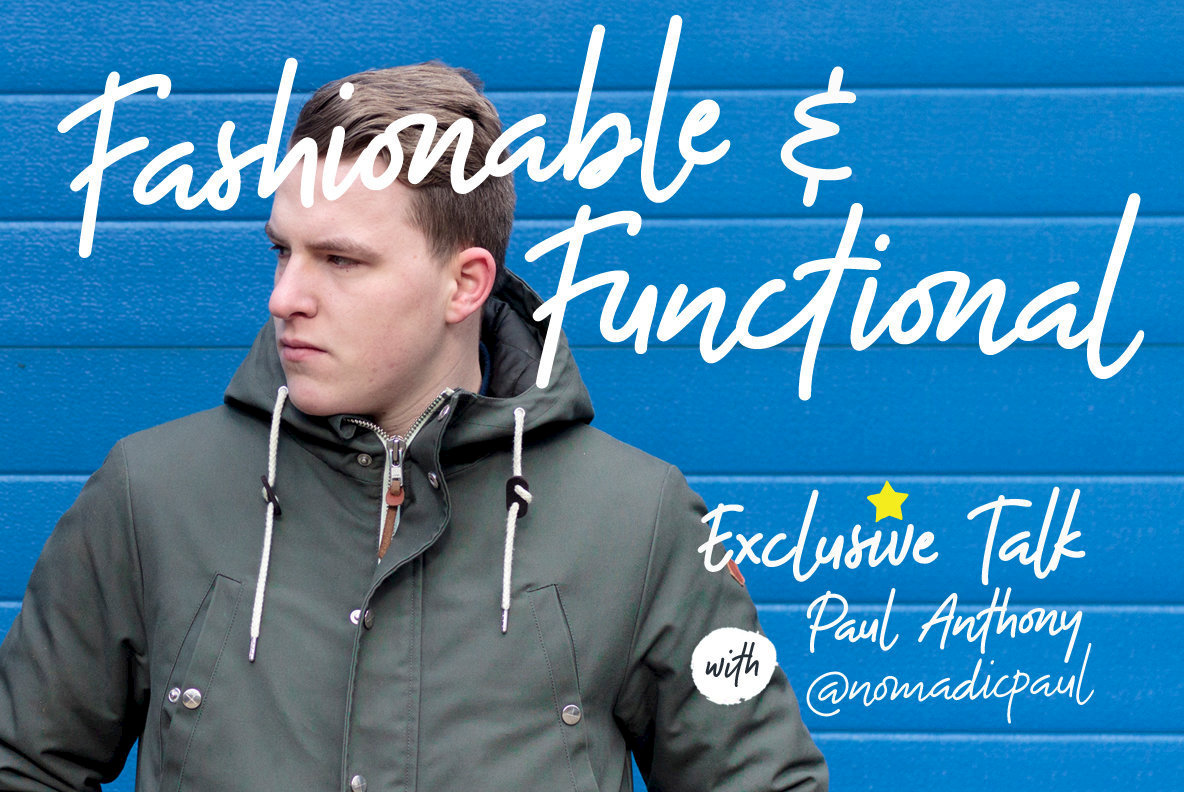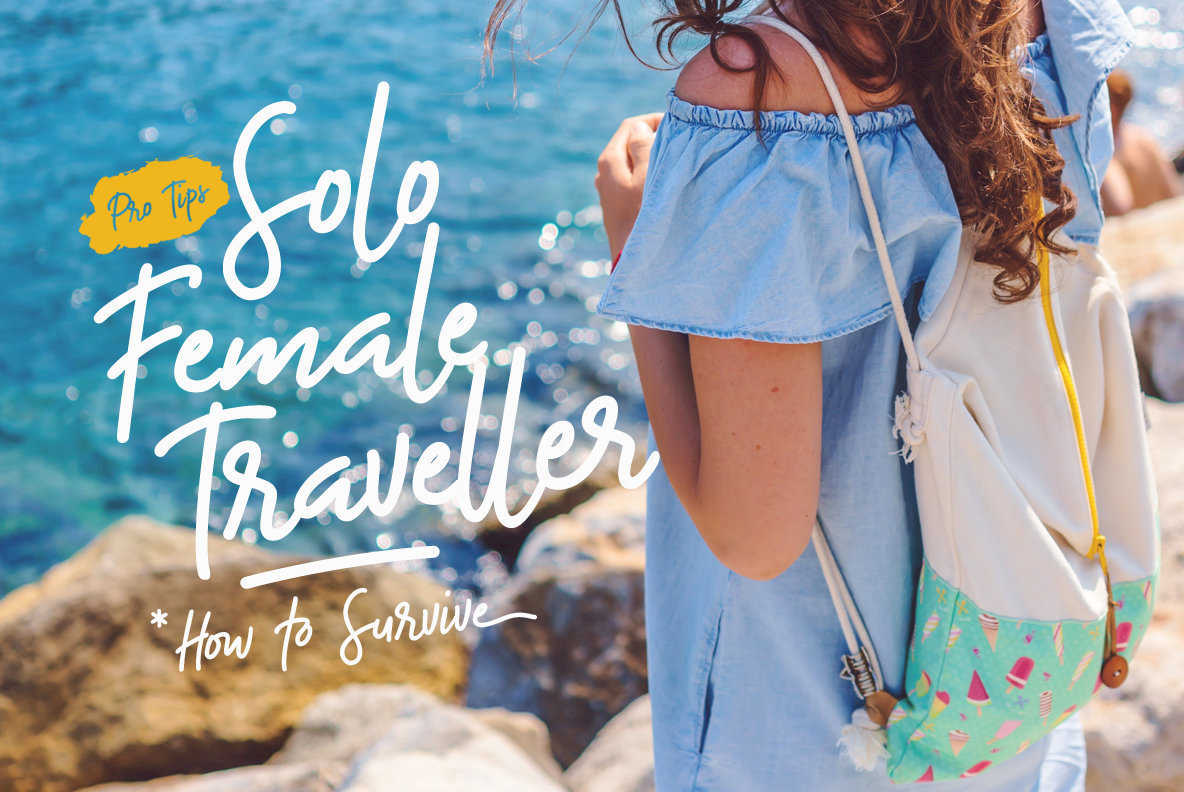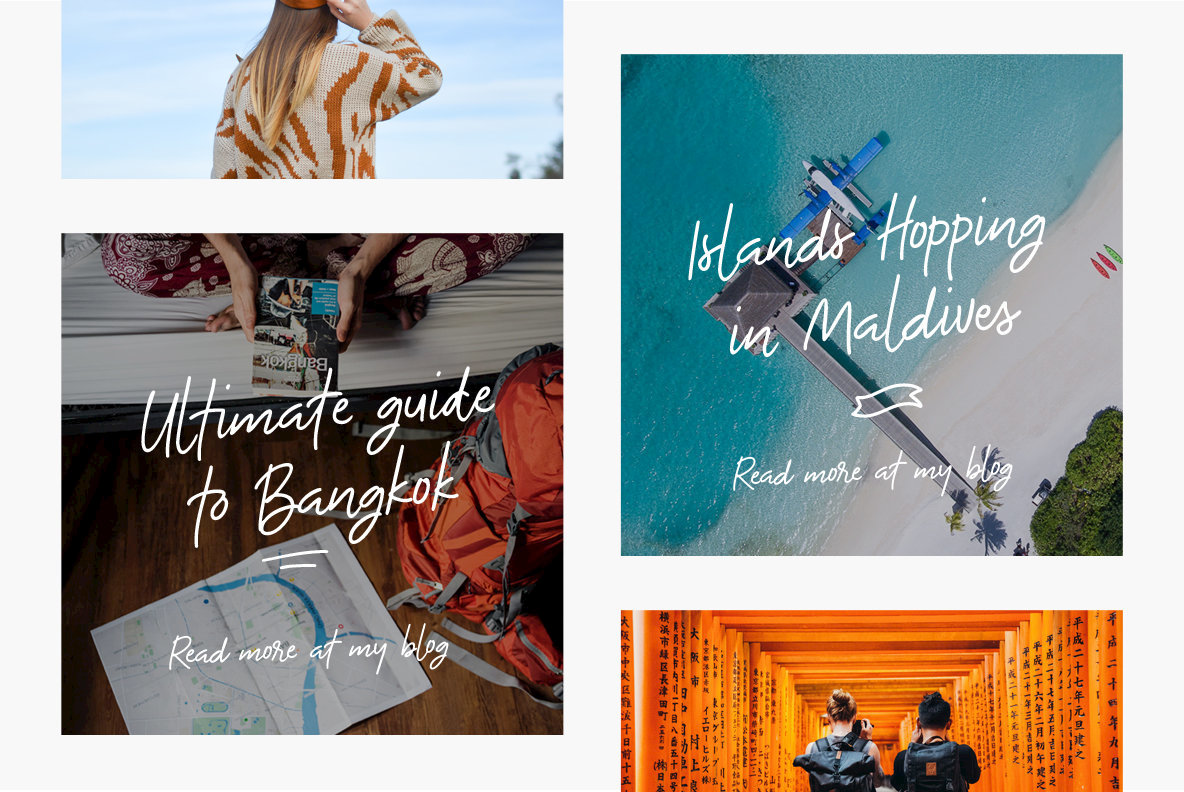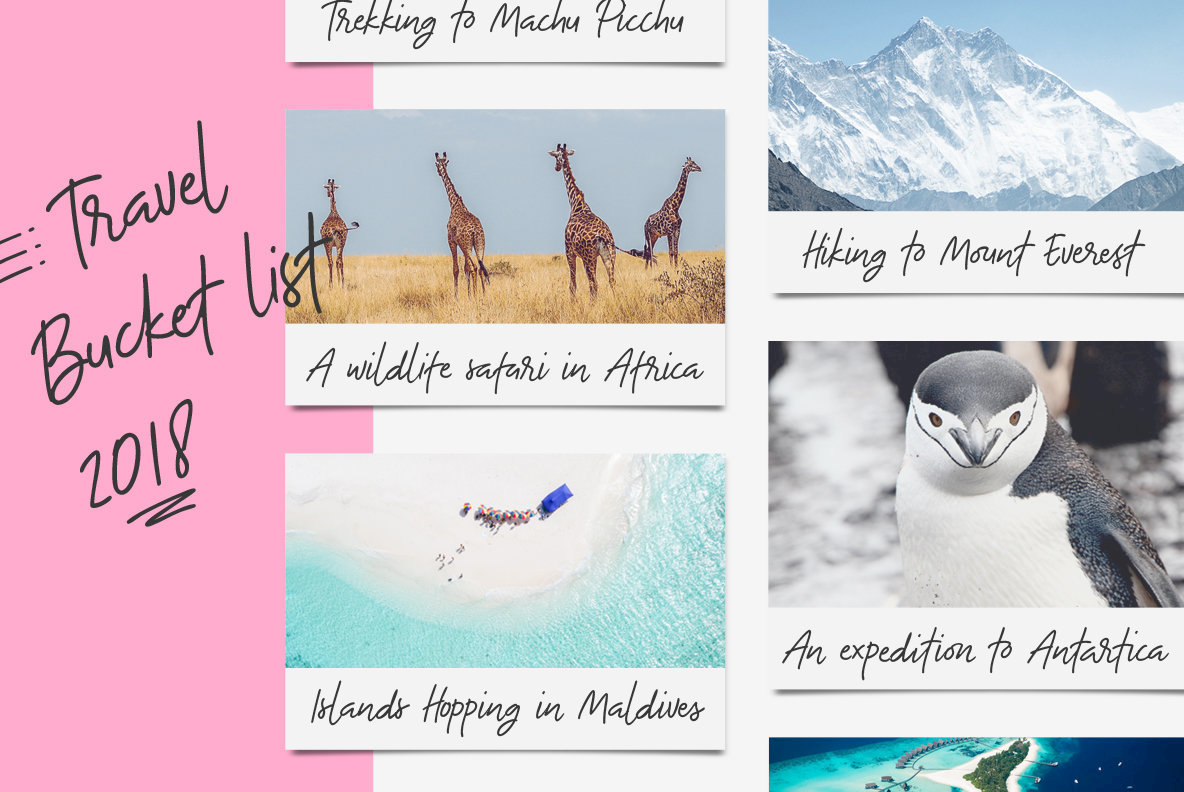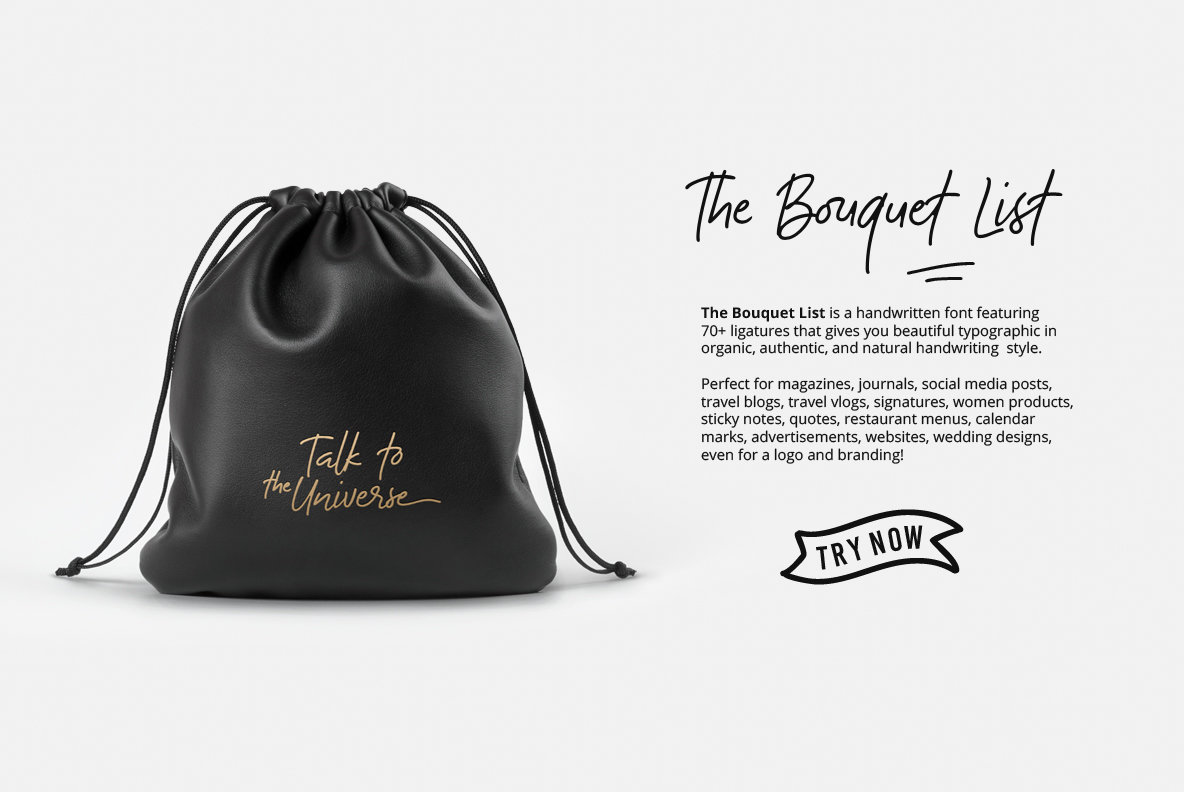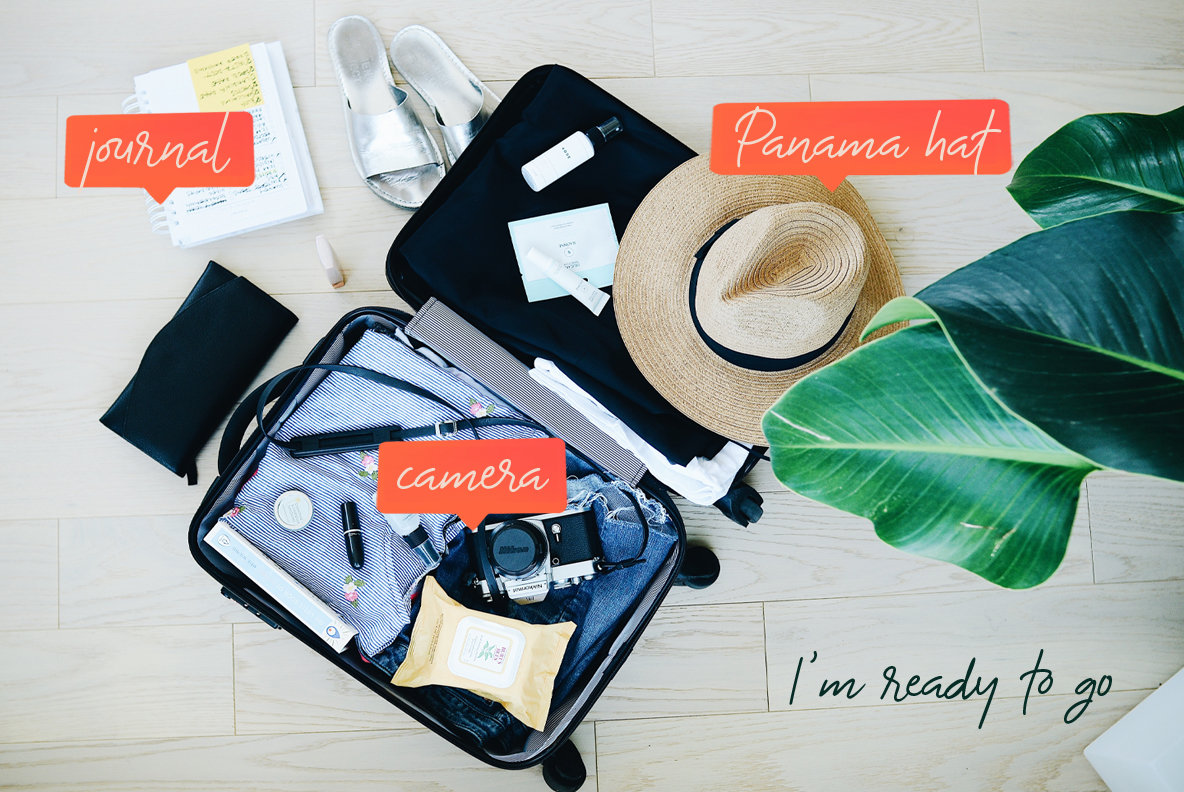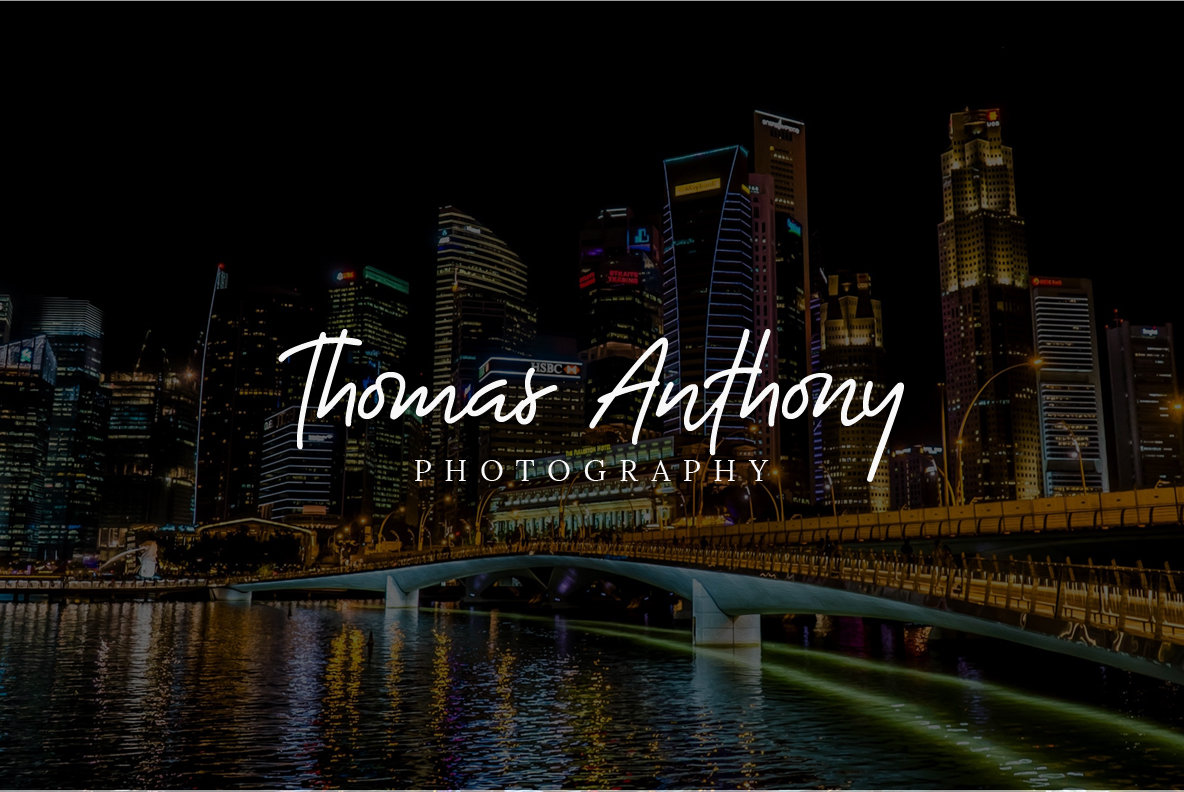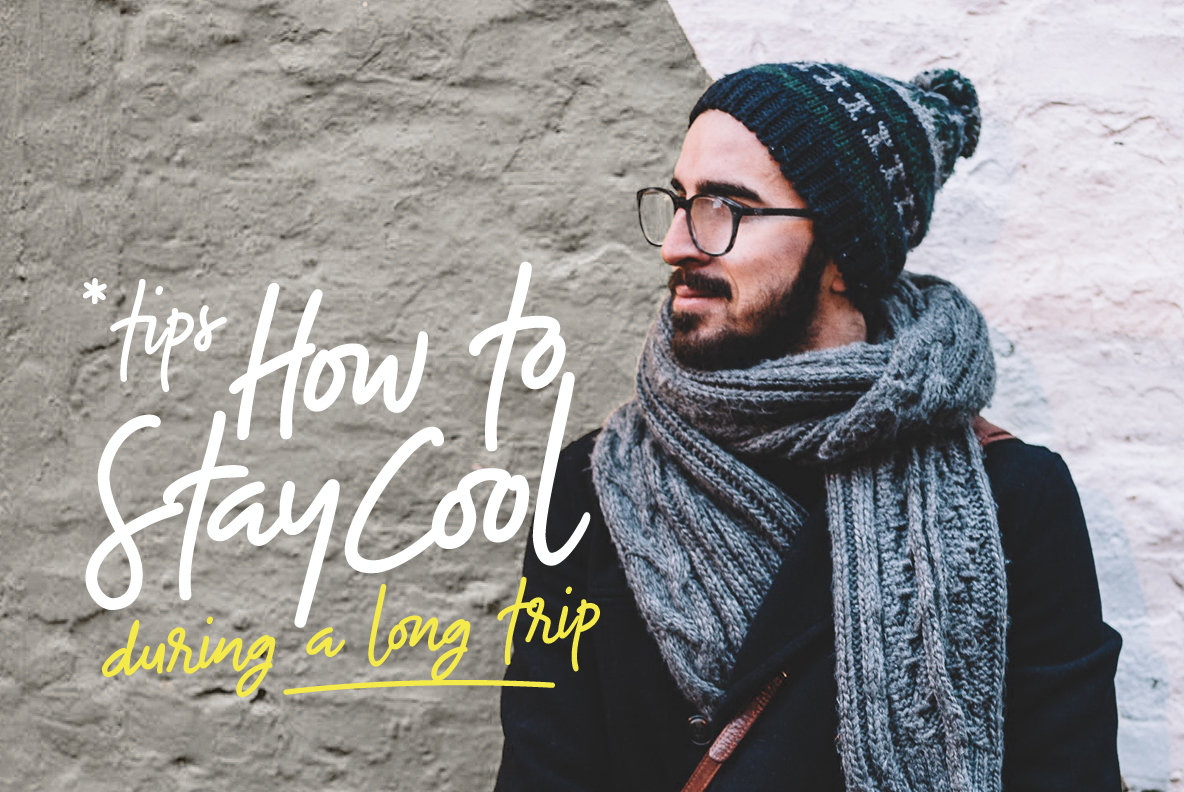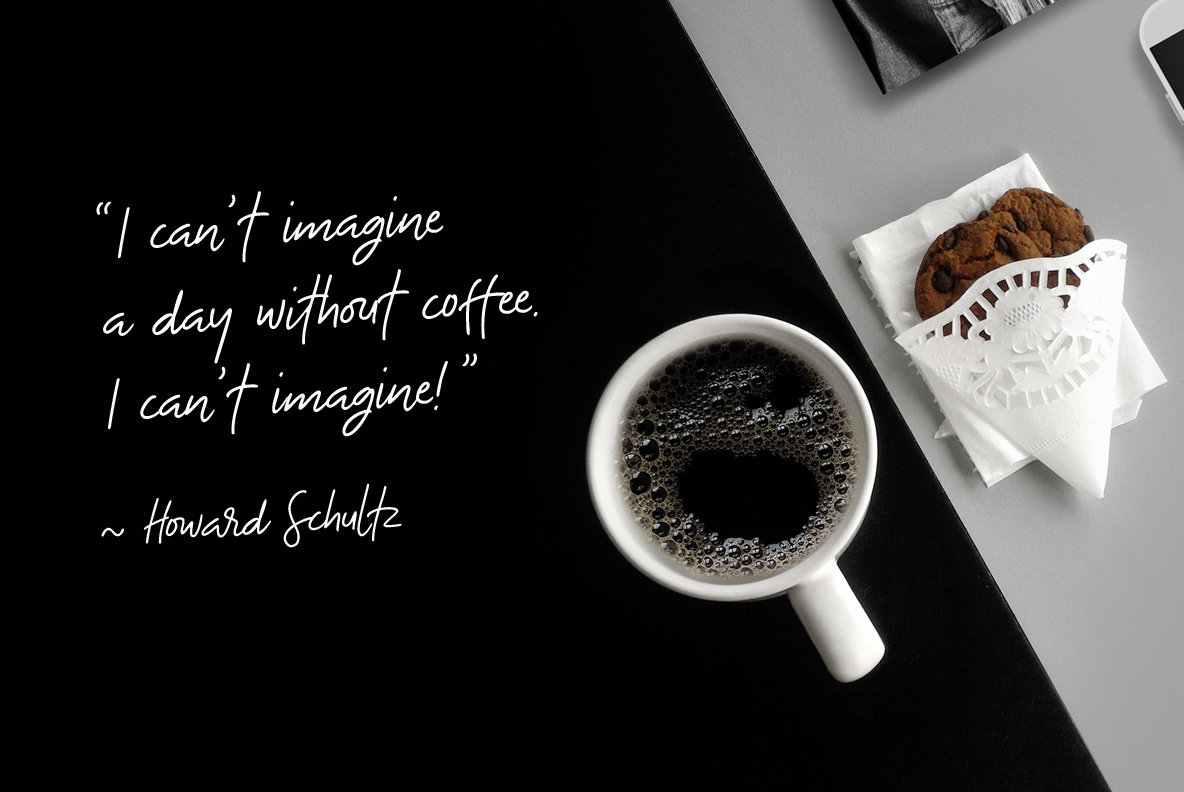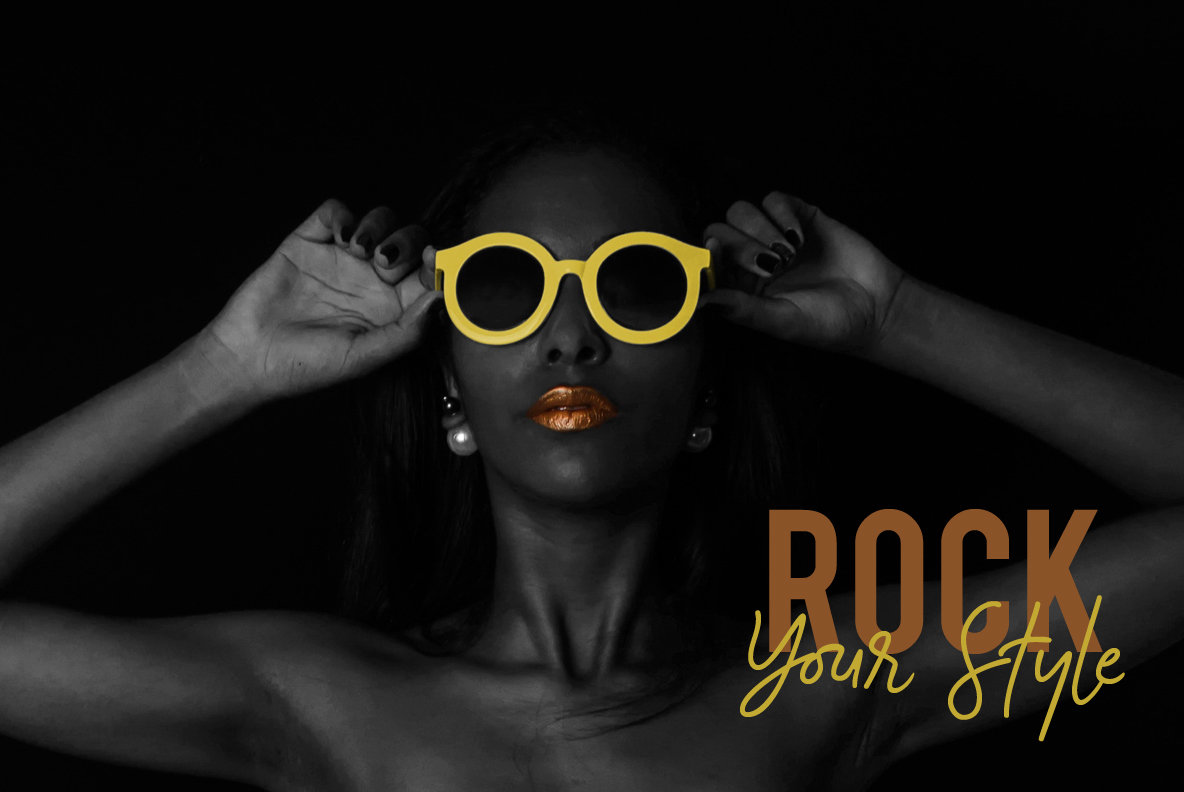
The Bouquet List Font
The Bouquet List
The Bouquet List Bold
The Bouquet List Extras
The Bouquet List draws inspiration from the elegance of floral arrangements and the subtle charm of handwritten lists, creating a script font of exceptional beauty. With over 70 ligatures, this typeface offers an organic and authentic style, making it an excellent choice for a wide range of projects. Features: The Bouquet List is PUA Encoded for ease of use across applications. Pair it with sans serif fonts like Bebas Kai or serif options such as Ames' Roman Bold for a harmonious combination. Perfect for adding a personal touch to your creative endeavors.The Bouquet List: Organic Handwriting Font